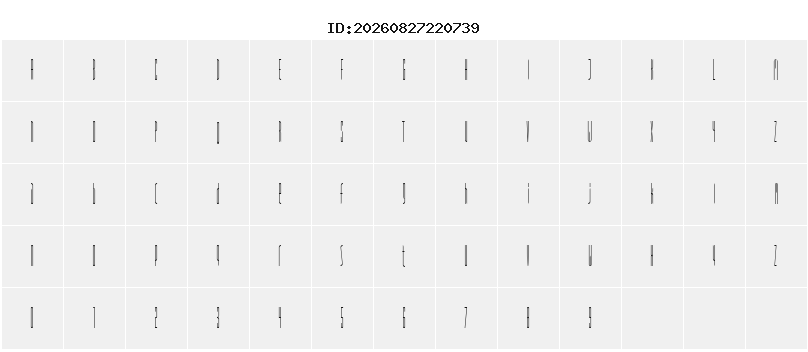
About Typeface FourOne.ttf
Typeface FourOne.ttf is a modern, elegant sans-serif font designed for ultimate readability and visual harmony. Perfect for branding, headlines, web design, and print materials.